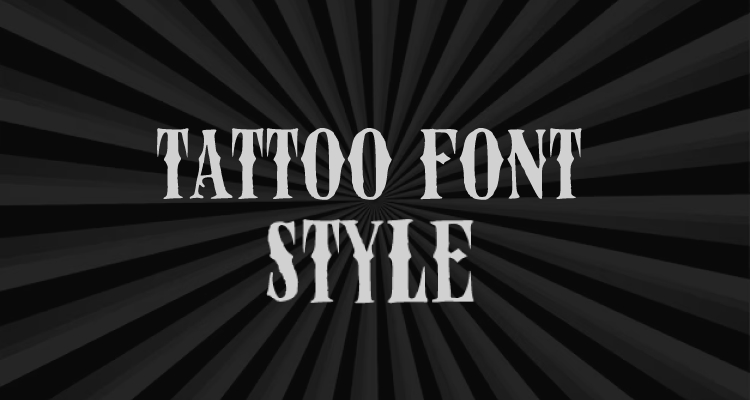
Stunning Tattoo Fonts for Exclusive Ink in 2024
Lettering tattoos are popular among tattoo enthusiasts. These tattoos include quotes, names, scripts and so on. Quotes and scripts make for profound and meaningful tattoo art. However, choosing the right font style is vital for an impactful word tattoo.
Whether you believe it or not font can help you convey your emotions correctly. Therefore, you must choose appropriate script tattoo fonts to create visually appealing lettering designs.
If you have decided to get this tattoo and are looking for great fonts then this post is for you.
Here, we have enlisted some of the ideas to help you choose the best font for your tattoo and leave a lasting impression on viewers. Let us dive in!
Top 15 Tattoo Fonts for Mesmerising Lettering Tattoos in 2024 and Beyond
This list includes the most popular tattoo fonts that suit every style and personality including name tattoo, tattoo fonts for men, women and so on.
1. Manuscript Tattoo Font
It is one of the best name fonts available out there. This timeless font is pretty popular among minimalists. So, if you have decided to get someone special name minimally inked on your skin then this tattoo is your best bet.
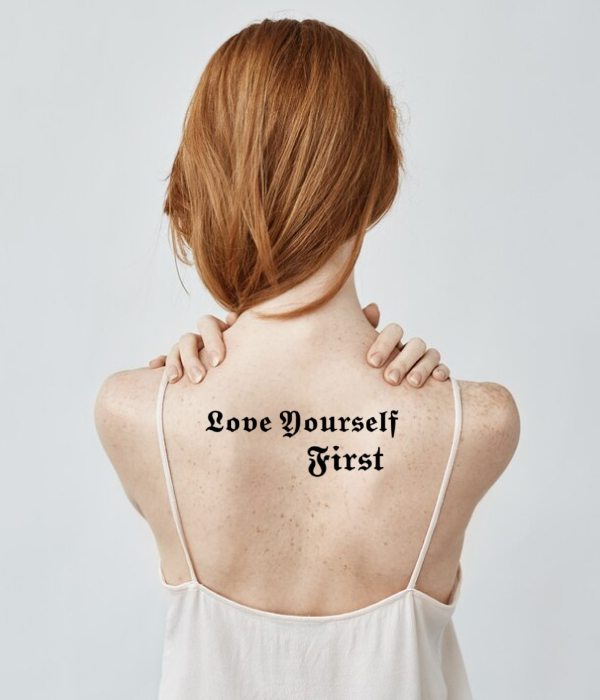
You can create a lasting impression on your special person with their name etched on your skin in manuscript font.
2. Handwriting Tattoo Font
People who do not want to go overboard with their tattoos they often opt for handwriting tattoo.
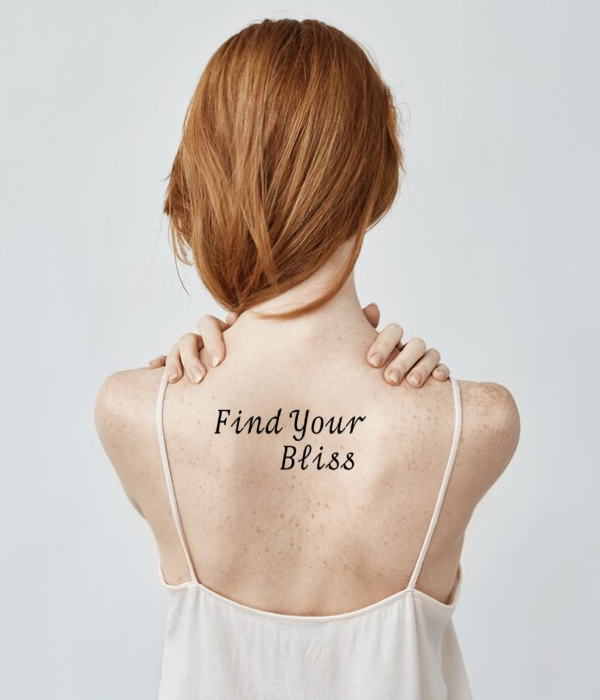
It is an excellent choice for those who wish to get a name tattoo etched on their skin. This flowy form will give your name tattoo a unique appeal for sure. Try it out!
3. The Lastring Tattoo Font
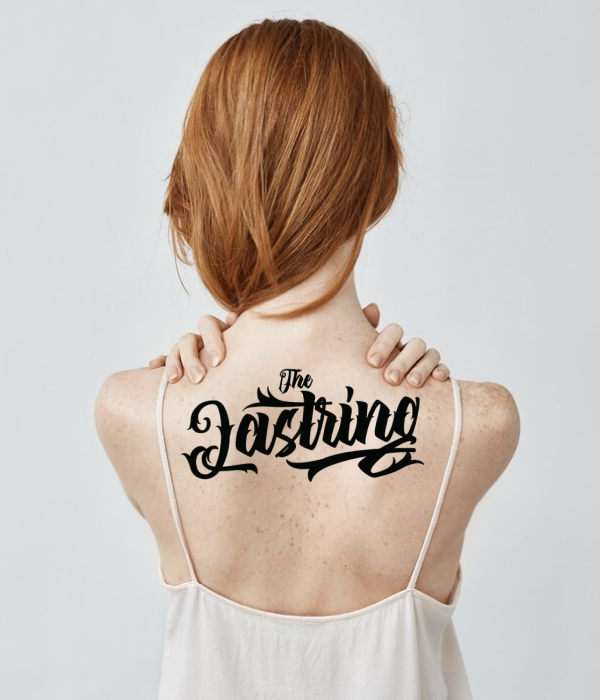
It is a great tattoo font for Gothic lovers. The Lastering script typeface combines vintage and retro styles which makes it a great option for retro style lettering designs.
4. Incognito Tattoo Font
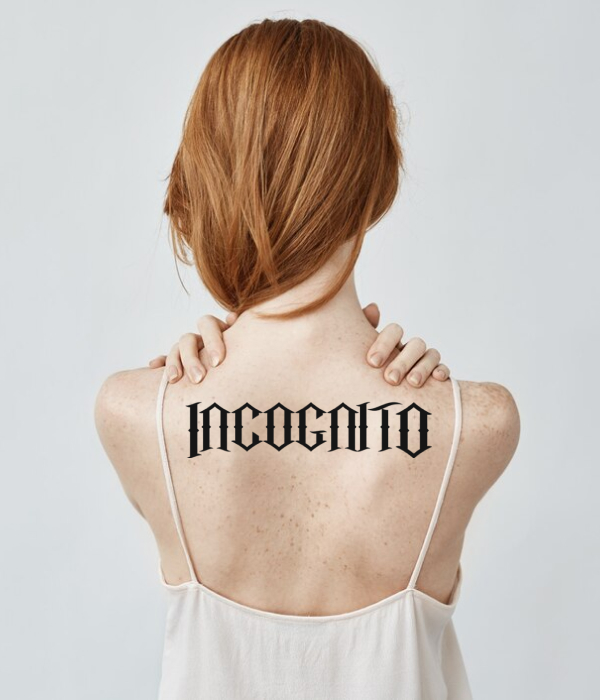
Do you want to make a bold statement with your script or quote tattoo? If so, then the Incognito tattoo is your best bet. Inspired by classic and vintage styles this font is ideal for quote tattoos.
5. Script Bold Italic Tattoo Font
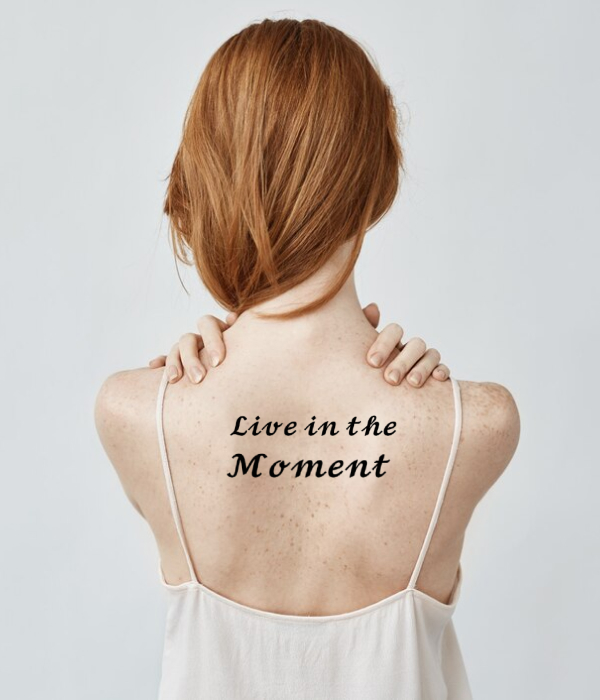
It is a great option for name tattoo and it pretty much matches the tattoo. Nonetheless, the cursive style imparts a distinctive charm to the name tattoo. This font is ideal for darker tattoos.
6. Harmonie Tattoo Font
Harmonie is yet another wonderful and elegant font that attracts tattoo enthusiasts.
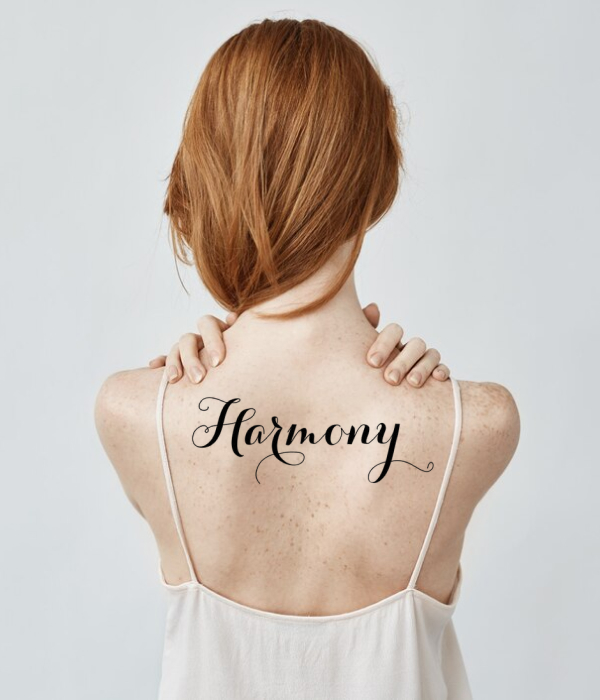
It is one of the best tattoo fonts for women who wish to adorn their skin with delicate tattoo. This cursive, handwritten style makes it a versatile option for quotes and script designs.
7. Monospace Tattoo Font
If you want a calligraphic styled tattoo then the Monospace script typeface is a beautiful choice.
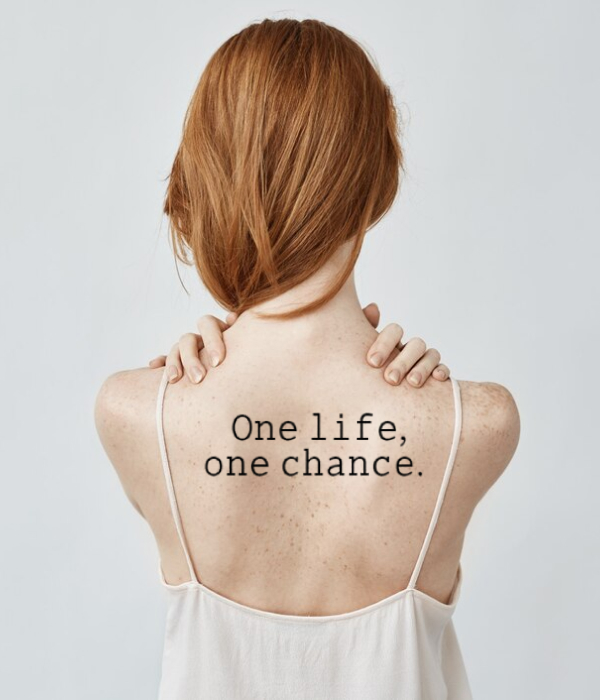
This distinctive tattoo font stands out among other calligraphic options due to its square shaped design. It is ideal for quote or phrase tattoo.
8. Subscript Tattoo Font
Another tattoo that is pretty popular among tattoo enthusiasts is Subscript.
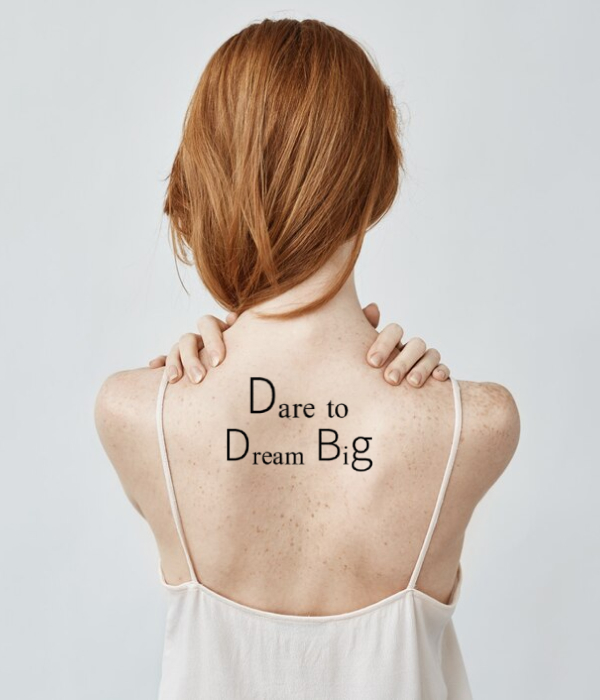
Subscript stands out as a distinctive tattoo font and is ideal for creating visually appealing quote tattoos.
It features capital initial letters along with smaller accompanying letters.
9. Brightone Tattoo Font
Are you looking for a script style lettering tattoo font? If so, then Brightone is your best pick.
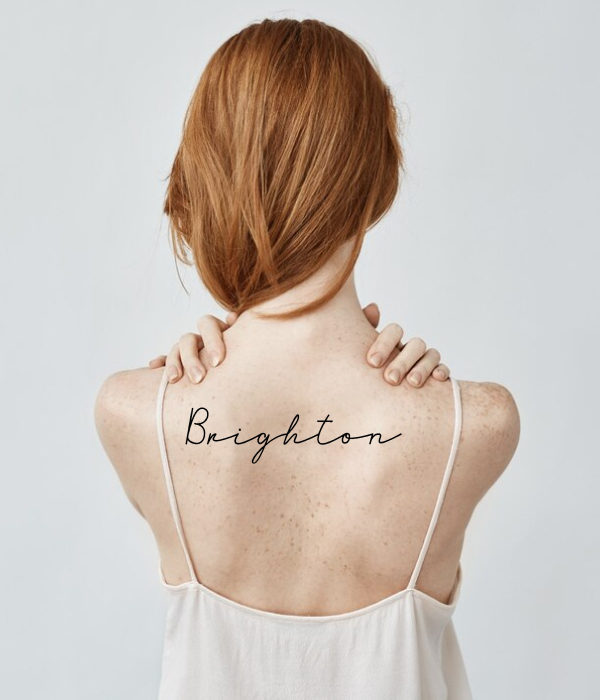
It is a classic script style tattoo that makes for the best word tattoos.
This tattoo is perfect for individuals looking to create a powerful impression with their tattoos.
10. Carpellon Tattoo Font
Elevate the appeal of your script tattoo with Carpellon. Carpellon is one of the best script tattoo fonts that make for striking designs.
It features intricate swashes and a graceful freehand calligraphic inspired style, ideal for creating captivating tattoos.
11. Chicano Tattoo Font
It is a great option for word tattoo. This distinctive script typeface features lower characters with ending swashes that make it ideal for short text tattoos.
Whether you wish to get your sweethearts name or your family name inked on your skin.
12. Strong West Tattoo Font
Do you want to get a retro inspired script tattoo? If so, then the strong west tattoo font is your best pick.
This design style is ideal for text tattoos that complement a larger design especially marine inspired designs.
13. Wildcats Tattoo Font
Want to make a bold statement? If yes, then Wildcats tattoo font is the best font for tattoos.
This classic and vintage inspired tattoo is ideal for bold and stylish text tattoos. Shading gives this style an elegant appeal.
14. Corinthia Tattoo Font
It is yet another wonderful tattoo font for small or one word text tattoos. So, if you want a minimal text tattoo then go with the Corinthia tattoo font.
15. Scarborough Tattoo Font
It makes for sleek text tattoo designs, ideal for those who embrace minimalism.
This elegant and unique tattoo font is a great option for both men and women.
Ending Note!
You can choose to get your text tattoo in any font outlined above. However, it is crucial to consider your design before choosing a tattoo font.
All of these tattoos have their unique styles. These styles are perfect for lettering tattoos including quote tattoos, phrase tattoos, word tattoos, script tattoos and other types of text tattoos.